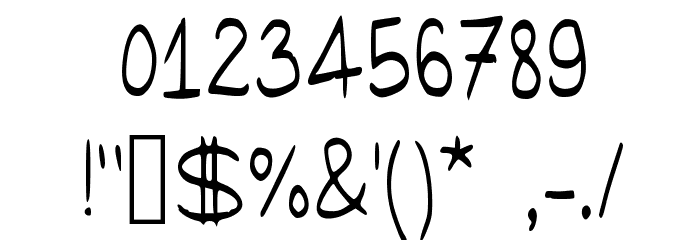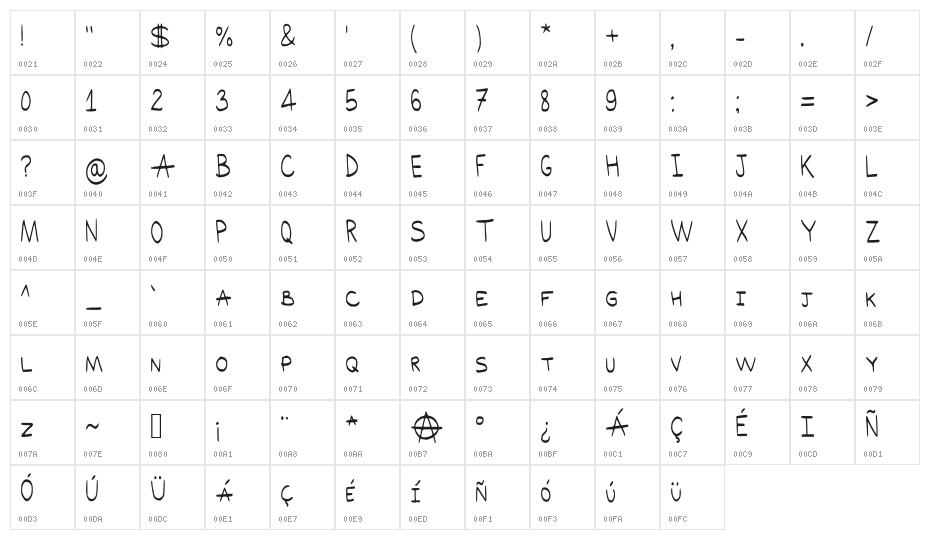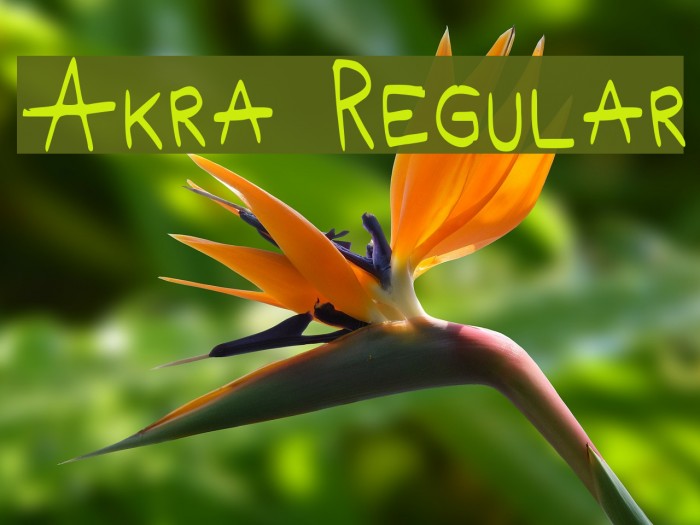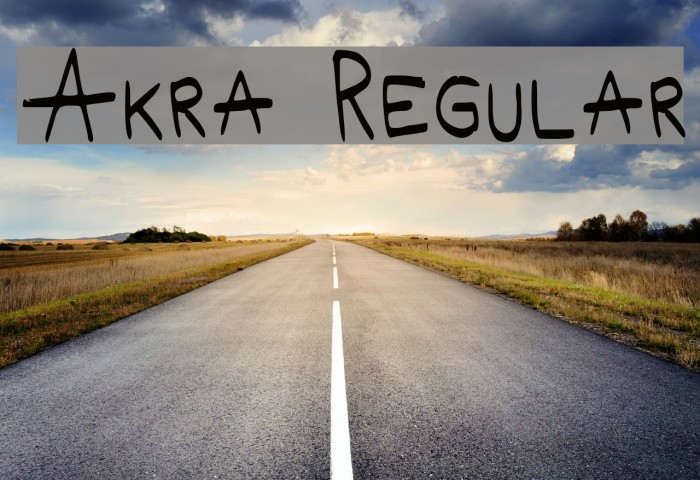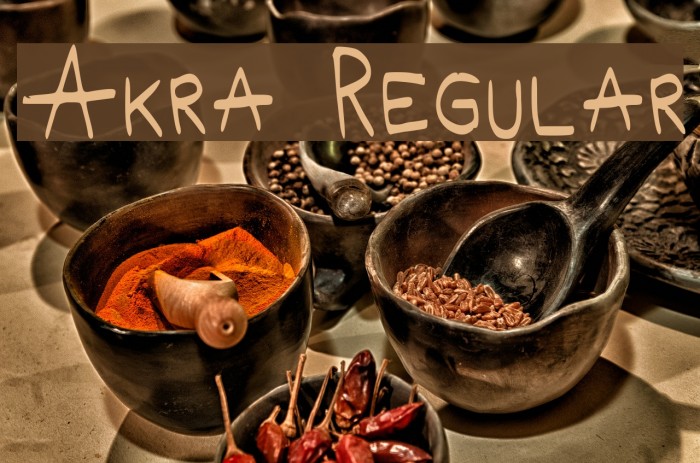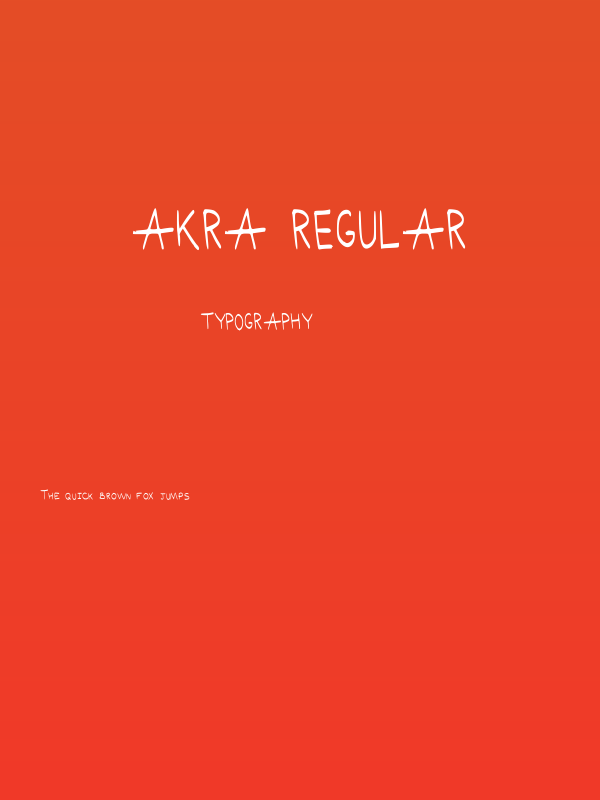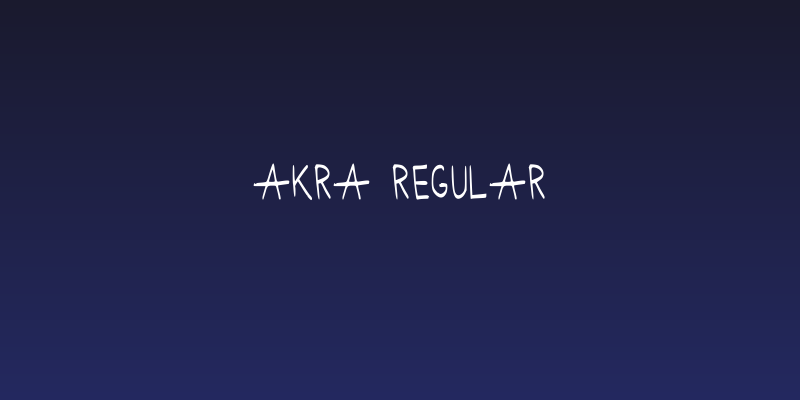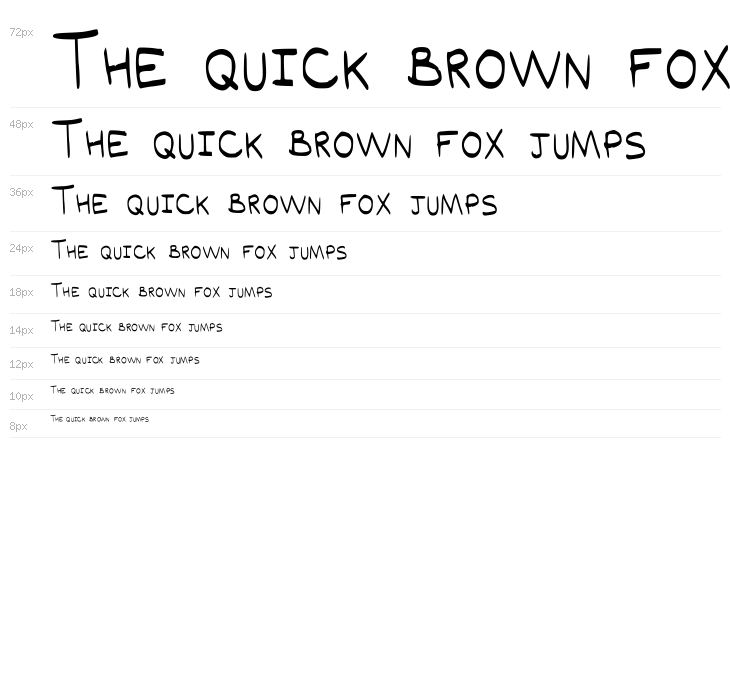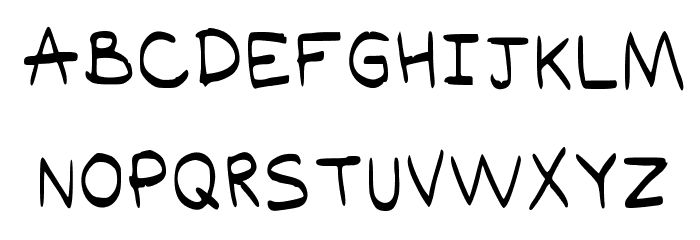
Akra Regular Font
Akra Regular Description
This font features a playful and informal style, characterized by its hand-drawn appearance. The letters have a slightly irregular shape, giving them a whimsical and casual feel. The strokes are consistent in width, contributing to a uniform look despite the informal design. The characters are well-spaced, ensuring readability while maintaining the font's unique charm. The numerals and special characters follow the same playful aesthetic, making them suitable for creative and fun projects. Overall, this font exudes a sense of friendliness and approachability, perfect for designs that aim to be engaging and lighthearted.
Overall StyleCasual
Use CaseHeadlines, Logos, Informal Text
Proposed ProjectsIdeal for children's books, greeting cards, playful branding, and casual invitations.